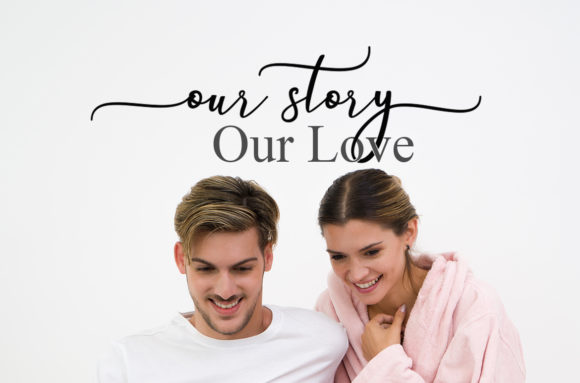
Introduction to Natasha Script Font
Have you ever found yourself in a creative rut, struggling to find the perfect font to bring your vision to life? I know I have. That’s why I’m always on the lookout for fresh and modern script fonts that can elevate my design projects. Recently, I stumbled upon the Natasha Script Font, and I’m excited to share it with you.
As a designer, I’m always on the hunt for high-quality design resources that can help me create something truly special. The Natasha Script Font is a game-changer, offering a classy calligraphy style and amazing decorative characters that are perfect for a wide range of creative projects. Whether you’re working on invitations, greeting cards, branding materials, or posters, this font is sure to add a touch of elegance and sophistication.
Key Features of Natasha Script Font
- Unique, elegant script font perfect for creative projects and design resources.
- Features a beautiful, cursive script with intricate details, suitable for titles, headings, and quotes in design projects.
- Perfect for use in wedding invitations, greeting cards, and other creative projects that require a touch of elegance and sophistication.
Honest Review: Natasha Script Font
As a designer, I’m always on the lookout for unique and high-quality fonts to elevate my creative projects. I recently stumbled upon the Natasha Script Font, and I must say, it’s a real gem.
One of the standout features of this font is its elegant and sophisticated feel. It’s perfect for projects that require a touch of luxury and sophistication, such as wedding invitations, luxury branding, or high-end packaging design.
- High-quality design: The Natasha Script Font is beautifully crafted with attention to detail, making it perfect for high-end projects.
- Limited character set: The font only includes uppercase and lowercase letters, with a limited set of punctuation marks.
- No bold or italic variations: While the font is beautiful, it would be great to have bold and italic variations to add more depth to your designs.
Overall, I’m impressed with the Natasha Script Font, and I would highly recommend it to designers working on high-end creative projects. While it may have some limitations, its unique design and high-quality feel make it a valuable addition to any design resource library.
The Natasha Script Font is perfect for use in a variety of creative projects, including wedding invitations, party decorations, and social media graphics. It’s also a great resource for designers working on branding and marketing materials. With its high-quality design and transparent background, the Natasha Script Font is a valuable addition to any design toolkit.